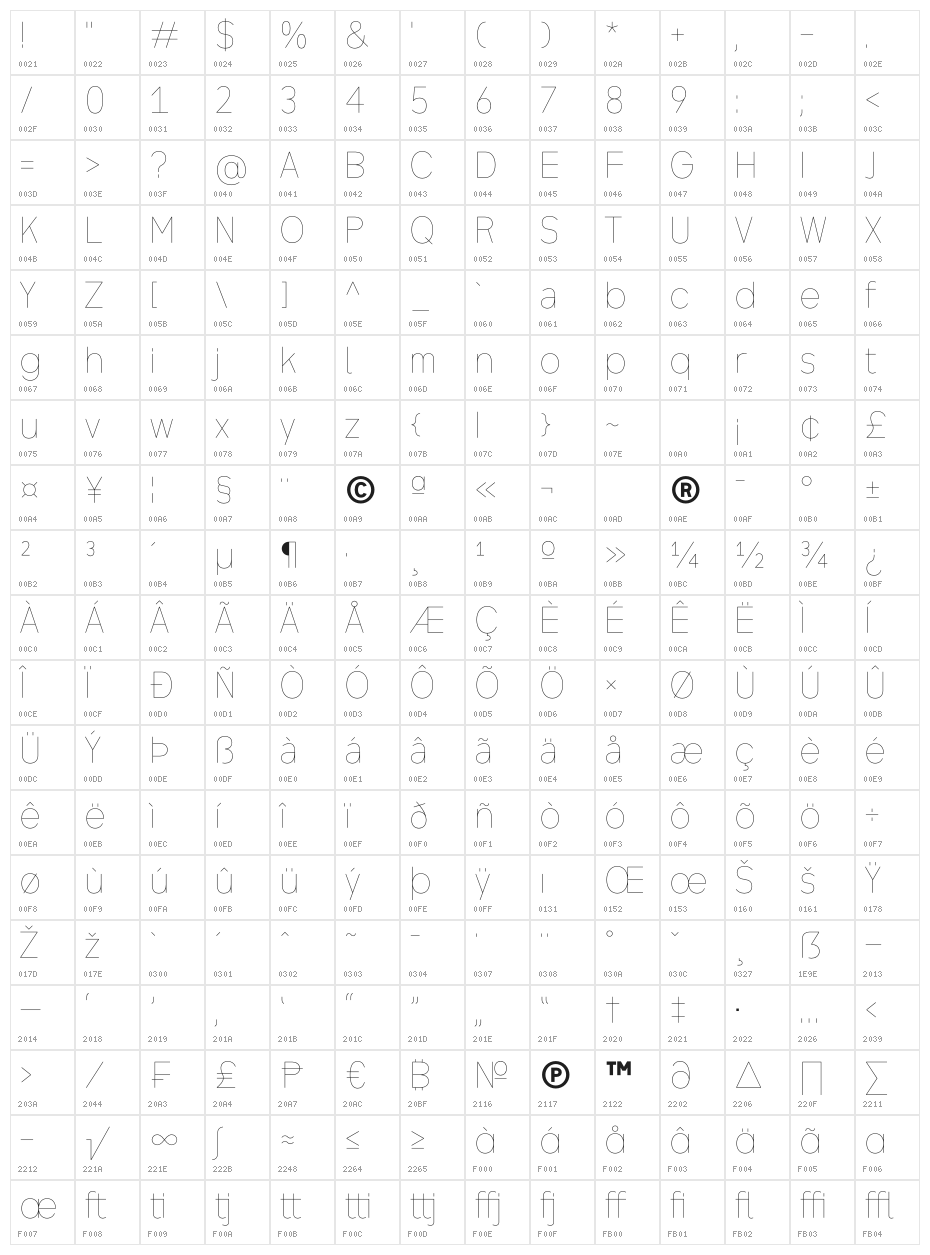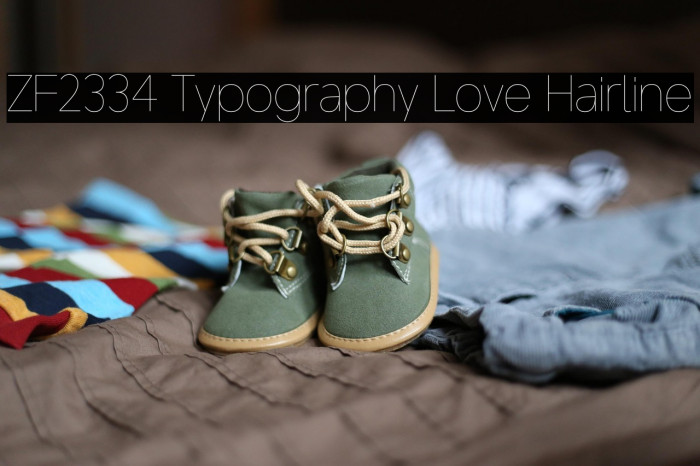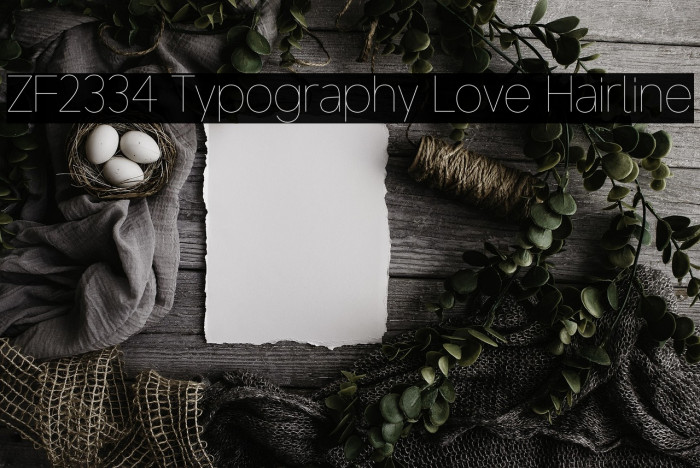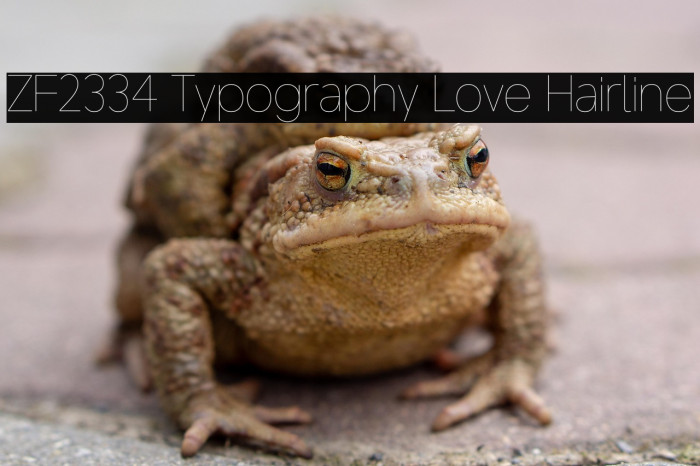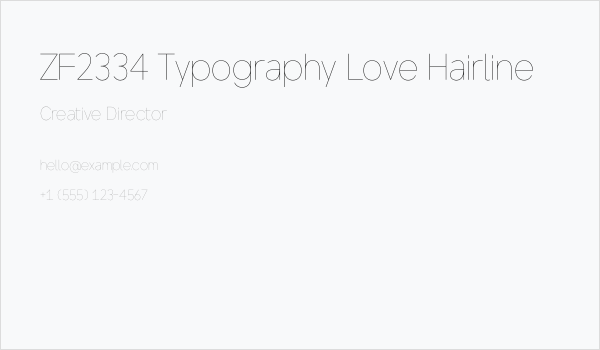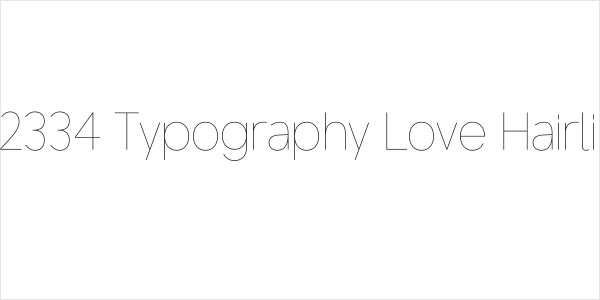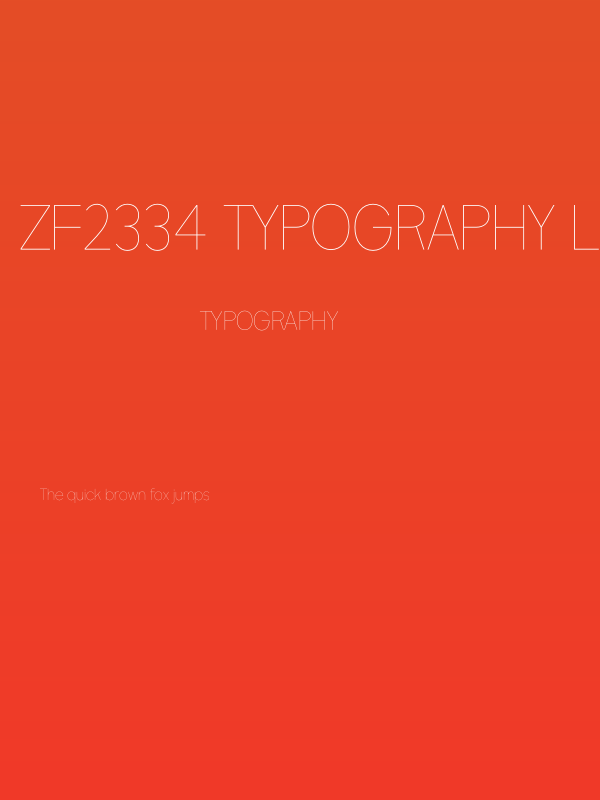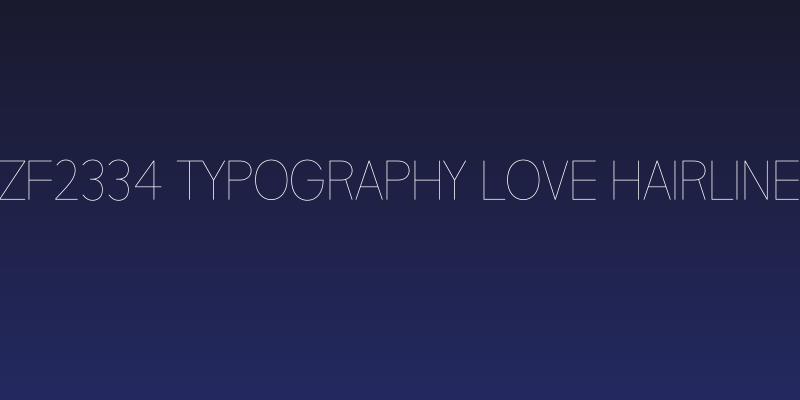
ZF2334 Typography Love Hairline Font
ZF2334 Typography Love Hairline Description
This font is characterized by its extremely thin and delicate strokes, giving it a refined and elegant appearance. The characters are well-proportioned with a consistent line weight throughout, contributing to a clean and sophisticated look. The design is minimalistic, with a modern touch that makes it suitable for high-end branding and editorial design. The uppercase and lowercase letters maintain a harmonious balance, while the numerals and special characters are crafted with precision, ensuring readability despite the thinness of the lines.
| Proposed Projects | Ideal for luxury branding, fashion magazines, wedding invitations, and minimalist design projects. |